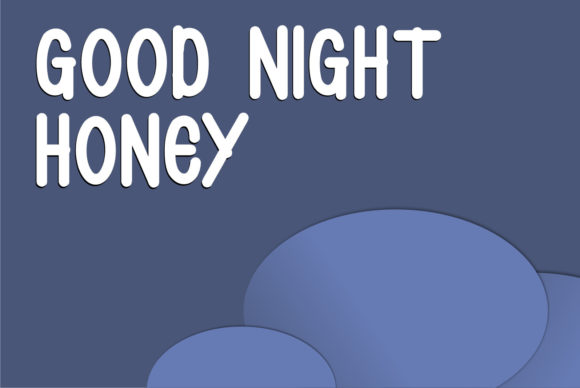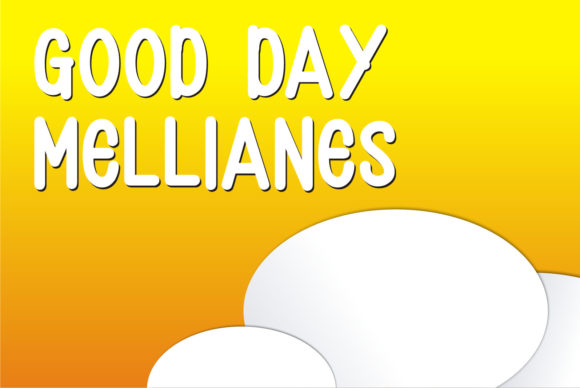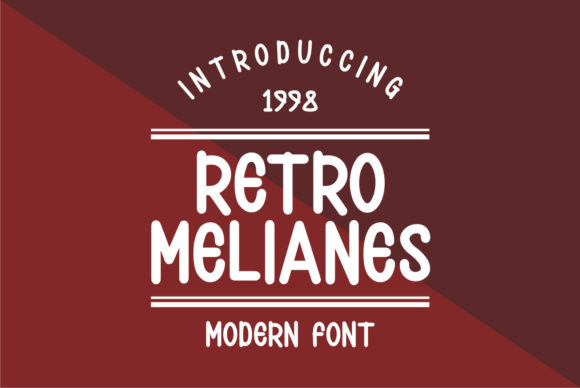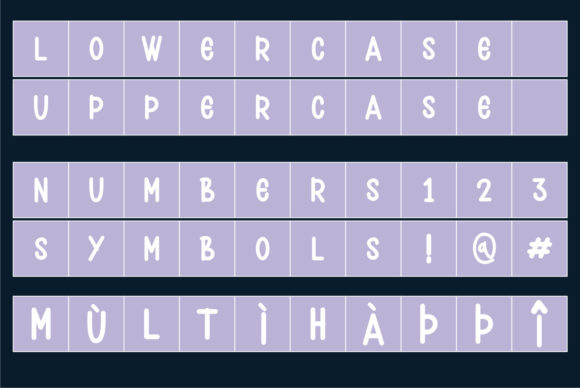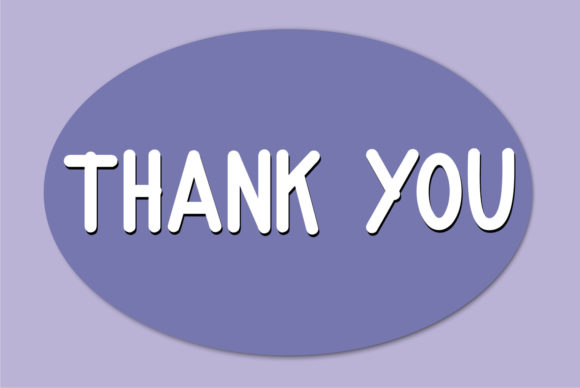
Introduction to Melianes Font
Melianes is a cool and trendy-looking display font.
You can add this typeface on posters, childrenโs books, education-related projects, comics, book titles, and many more .